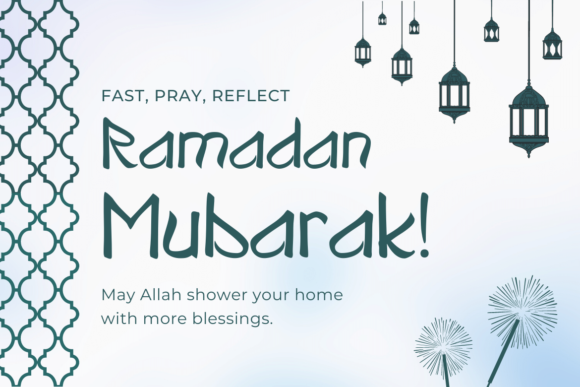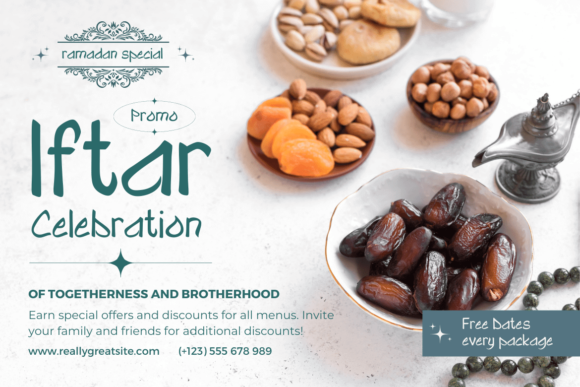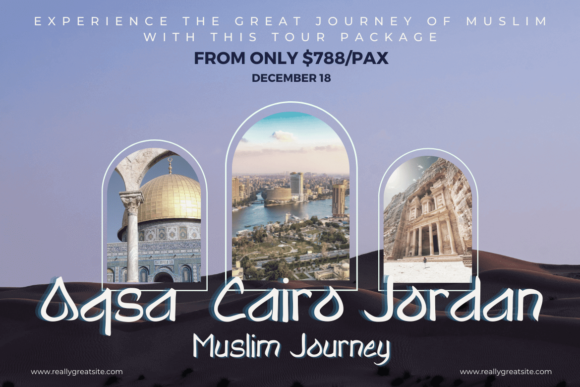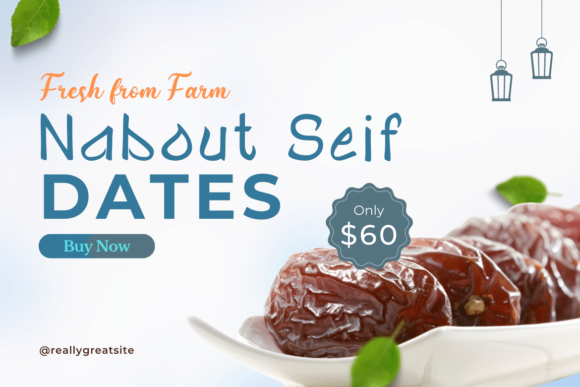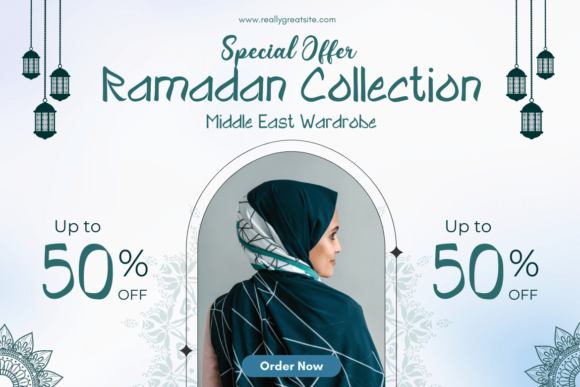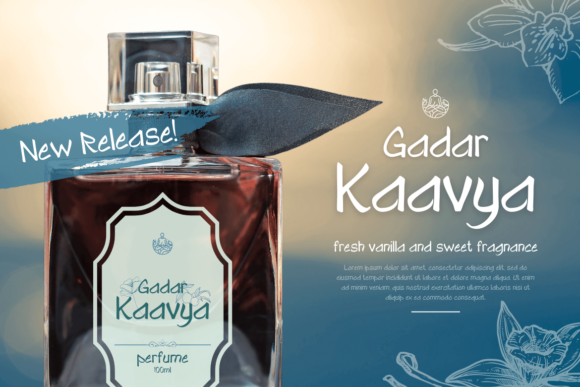
Introduction to Qojarun Font
As a designer, there’s nothing quite like the thrill of bringing a creative project to life. You’ve poured your heart and soul into every detail, from the color palette to the typography. But sometimes, that perfect font can be elusive – until you discover the Qojarun Font.
This elegant, high-quality font is a game-changer for designers looking to add a touch of Middle Eastern flair to their work. With its beautiful, calligraphy-inspired letters, the Qojarun Font is the perfect design resource for anyone looking to elevate their creative project. Whether you’re working on a poster, logo, or website, this versatile font is sure to impress.
Key Features of Qojarun Font
- High-quality design resource ideal for creative projects and professional use
- Includes a range of glyphs and characters, making it suitable for multilingual projects
- Unique characteristics: modern, elegant, and sophisticated design style, perfect for branding, logos, and typography-based creative projects
Honest Review: Qojarun Font
I recently stumbled upon the Qojarun Font, a free design resource that caught my attention. As a designer, I’m always on the lookout for high-quality fonts to elevate my creative projects.
Here’s what works well: ✨ The Qojarun Font has a unique, modern design that’s perfect for contemporary projects. It features a transparent background, making it easy to layer and combine with other design elements. The font is also highly legible, even at smaller sizes.
However, there are a few limitations: ⚠️ The Qojarun Font doesn’t offer as many font styles as some other popular fonts. Additionally, the font may not be suitable for projects that require a more classic or traditional look.
Overall, I’m impressed with the Qojarun Font. It’s a great addition to any designer’s toolkit, and its unique design makes it a standout choice for creative projects. I’d definitely recommend it to fellow designers looking for a high-quality, free font resource.
- Unique, modern design
- Highly legible
Common Use Cases for Qojarun Font
The Qojarun Font is suitable for a wide range of creative projects, including graphic design, digital art, and print design. It can also be used in presentations, documents, and websites to add a touch of elegance and sophistication.